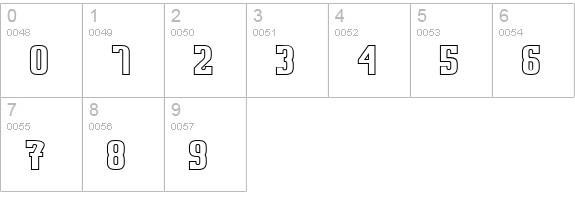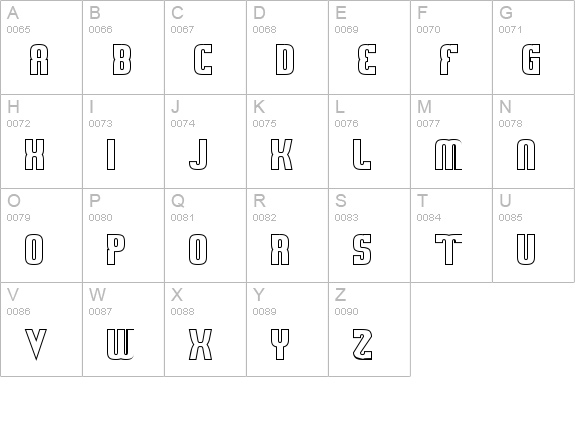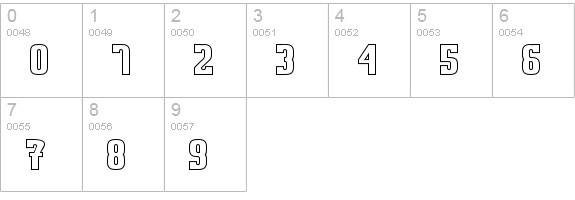
Sweden Funkis Outlined font is a modern and stylish typeface that exudes elegance and sophistication. With its clean lines and geometric shapes, this font is perfect for adding a touch of contemporary flair to any design project. The outlined version of the Sweden Funkis font adds a unique and eye-catching element to your text, making it stand out from the crowd. What's even better is that Sweden Funkis Outlined font is available for free download at FontsMarket.com. This means you can easily access this high-quality font without any cost, making it a great choice for designers looking to enhance their projects without breaking the bank. Don't miss out on the opportunity to elevate your designs with the Sweden Funkis Outlined font today!